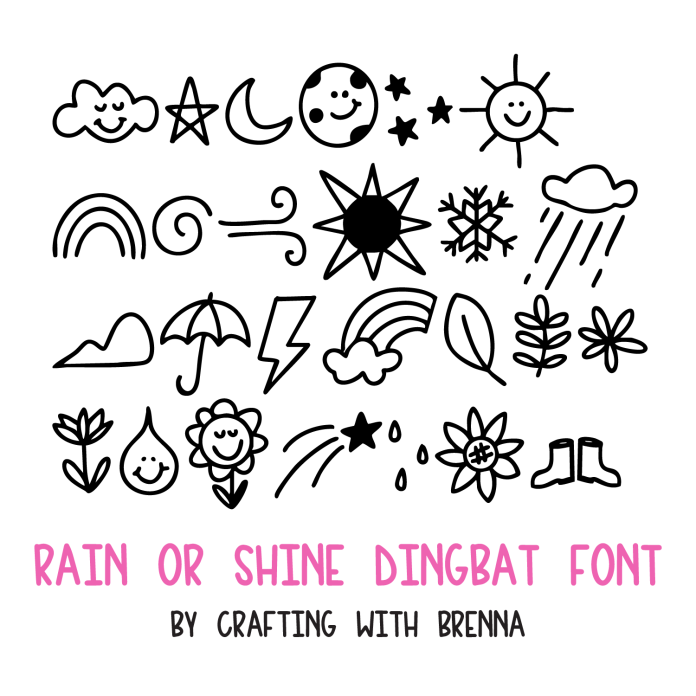
Rain or Shine Dingbat Font is a delightful weather-themed dingbat font featuring fun icons like sunshine, clouds, raindrops, umbrellas, snowflakes, and more! Perfect for adding whimsical weather elements to your planner pages, greeting cards, teacher resources, bulletin boards, scrapbooking layouts, and DIY crafts. Each character key corresponds to a unique hand-drawn symbol—great for quick design accents without searching for graphics. Use it with cutting machines for vinyl, paper crafts, HTV projects, and print & cut designs. Whether you're crafting for a rainy day or a sunny celebration, Rain or Shine Dingbat Font adds charm to any creative project!